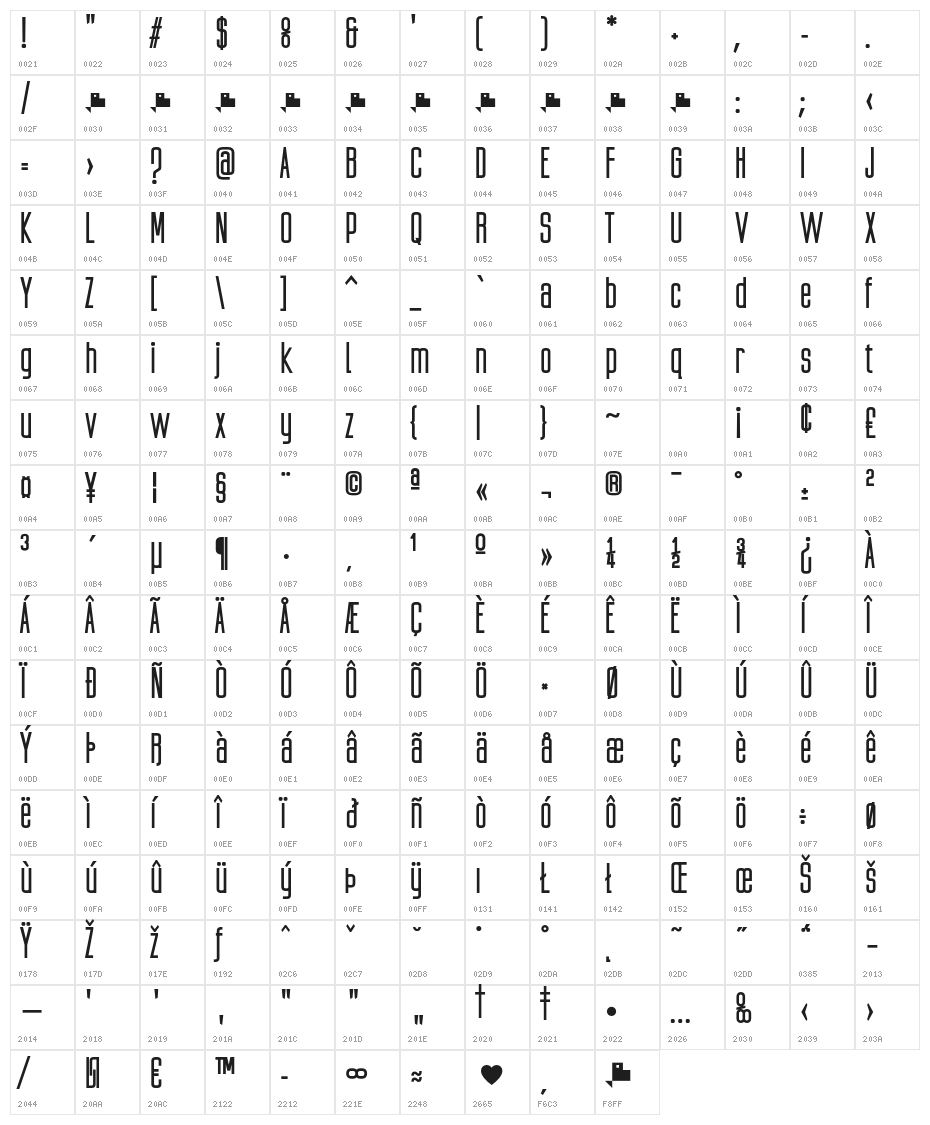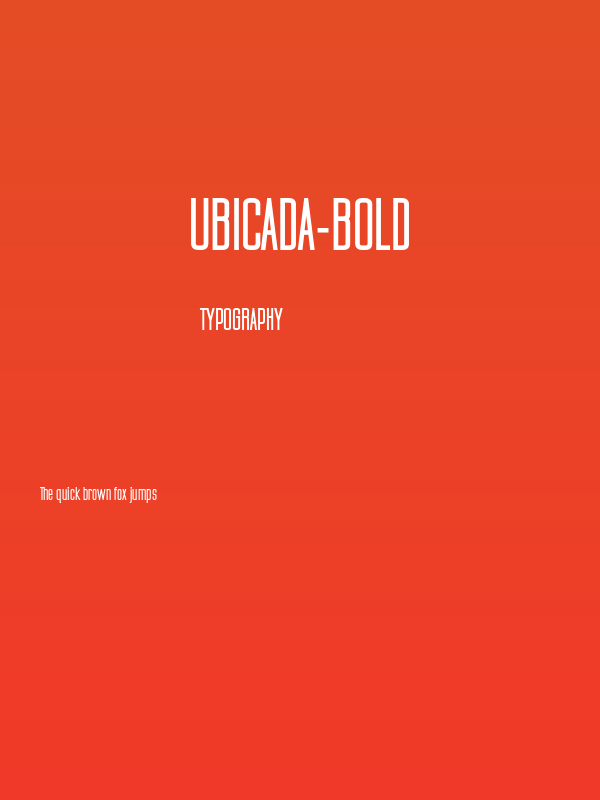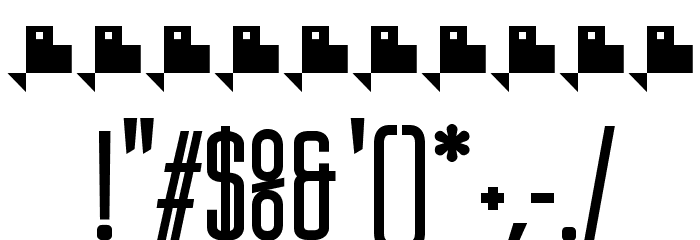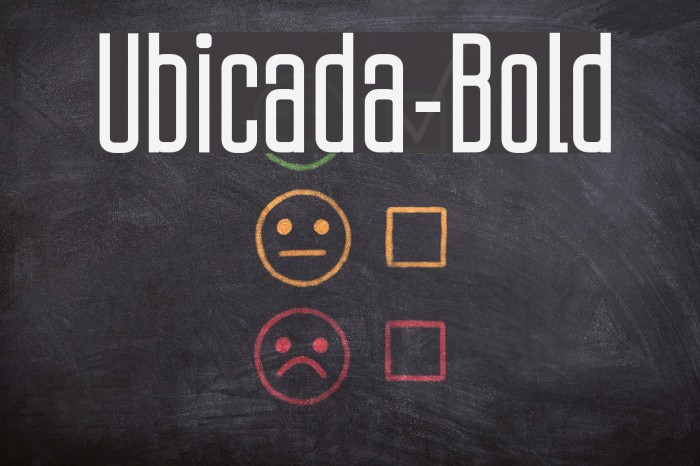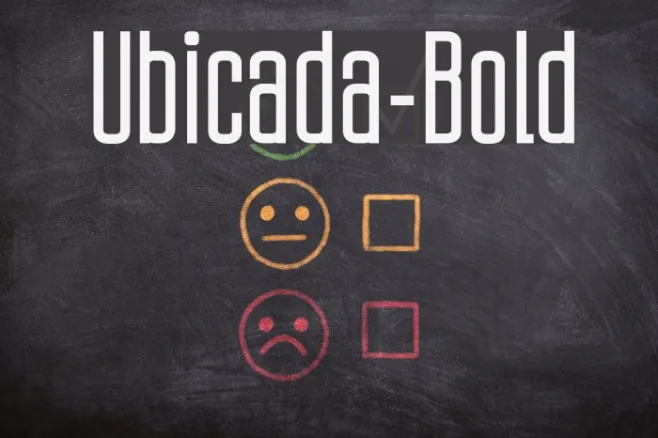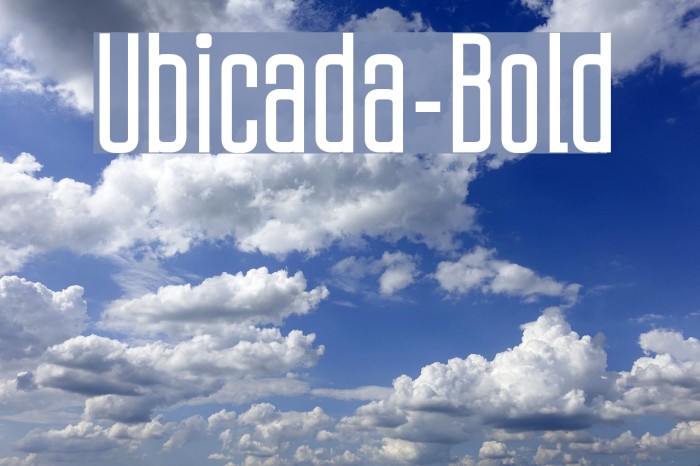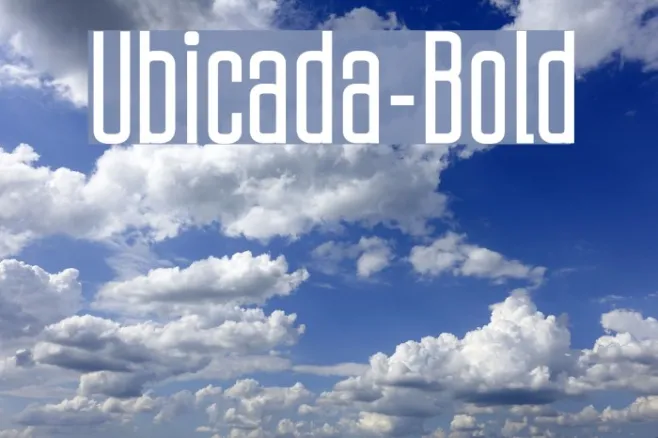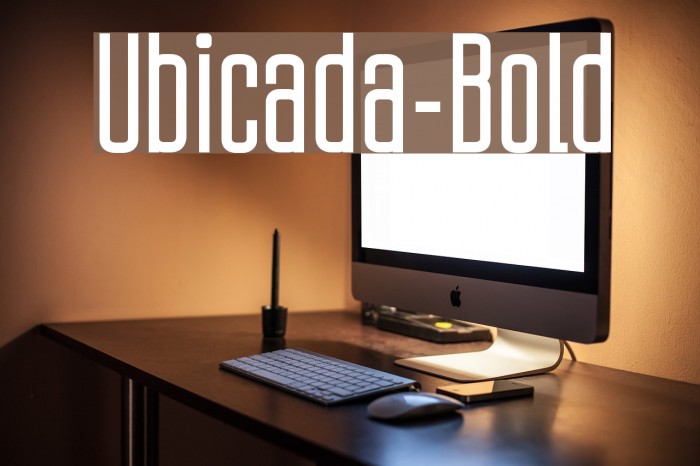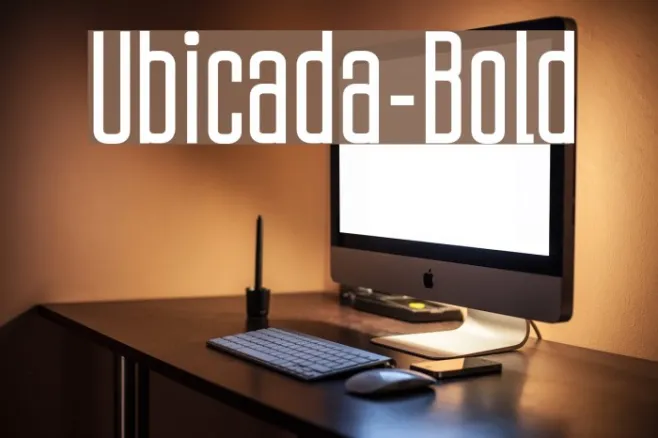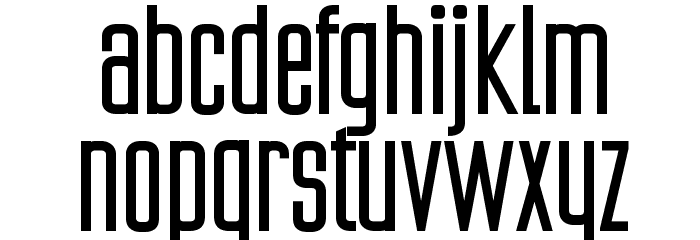
Ubicada-Bold Font
Ubicada-Bold Description
This font features a bold and modern design with a strong geometric structure. The characters are tall and narrow, giving it a condensed appearance. The uppercase letters are particularly striking, with clean lines and a uniform height that creates a cohesive look. The lowercase letters maintain the same geometric style, offering a seamless transition between cases. The numerals and special characters are designed to match the overall aesthetic, ensuring consistency throughout. This font's style is ideal for making a bold statement in any design project.
| Proposed Projects | Ideal for headlines, posters, branding, and any project requiring a strong visual impact. |